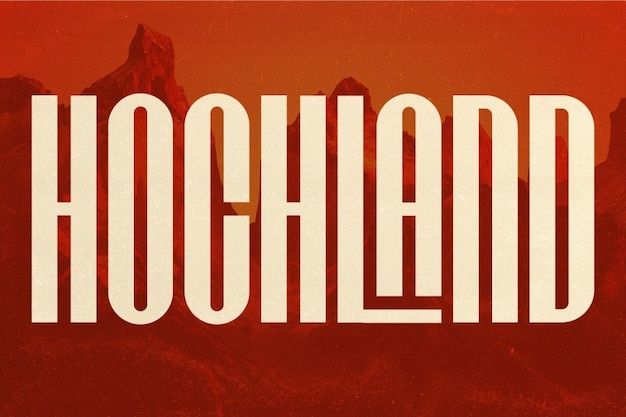
Hochland Font
A font that seamlessly combines simple elegance with geometrical precision, tailor-made for magazines. Its letters are a symphony of clean lines and contemporary design, creating a visual harmony that captures attention. With every character, you step into a world of effortless style. 'Hochland' adds an air of understated beauty to your text, where each letter is a brushstroke of geometrical allure and timeless simplicity, crafting a typographic masterpiece that's both captivating and perfect for modern magazine layouts.